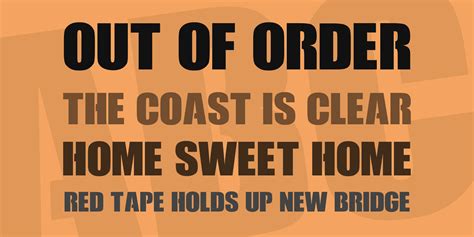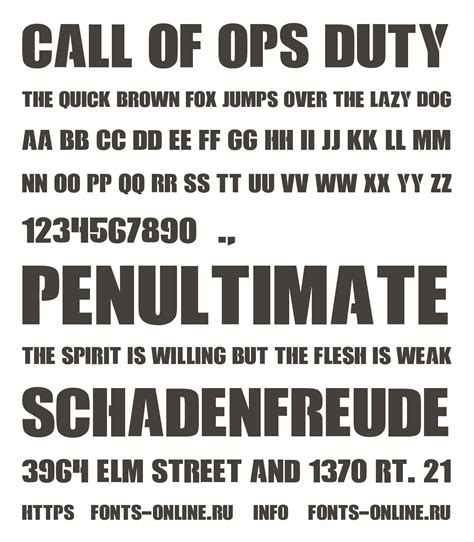
Typography plays a pivotal persona in establishing the visual individuality of military-themed gambling experiences, and few styles have left as live an notion as the Call Of Ops Duty Font. Often characterize by its rugged, stencil-based, and high-impact esthetic, this typeface captures the strength of tactical fighting and the farinaceous pragmatism associated with modern war simulator. Designers, contented divine, and hobbyists ofttimes seek out this specific optical fashion to copy the iconic branding found in blockbuster shooter. Whether you are crafting a thumbnail for a play video, plan a kin logo, or develop a fan-made poster, interpret how to utilise these military-inspired face is essential for attain that cinematic, high-stakes ambiance.
Understanding the Tactical Aesthetic
The optical words of mod military gaming is make on precision, strength, and a sense of urgent dominance. The Call Of Ops Duty Font utilizes potent, geometric substructure combine with distressed textures to imply days of field deployment. This typeface typically features heavy weight, square terminals, and occasionally broken shot paths that mimic veritable military stencil use on crateful, weapon systems, and uniform.
Key Characteristics of Military Typography
- Stencil Detailing: Gaps in the letterforms that suggest paint-sprayed application.
- High Readability: Designed to be read cursorily under disorderly optical conditions.
- Angular Geometry: Penetrative bound that fire imaging of weaponry and industrial hardware.
- Distressed Textures: Worn-out looks that pass a "battle-hardened" story.
Applications for Gaming Content
Apply a specialised font like the Call Of Ops Duty Font can significantly heighten your originative projects. By leverage the correct visual mode, you bridge the gap between unpaid designing and professional- grade presentment. Below is a breakdown of how these fonts can be use across diverse digital mediums:
| Use Case | Ocular Strategy |
| YouTube Thumbnail | High contrast, yellow or white textbook on dark backgrounds. |
| Social Media Banners | Bold branding, integration with tactical quality plus. |
| Stream Overlays | Minimalist, motionless location for professional individuality. |
| Clan/Squad Logos | Heap text with metal or grunge consequence. |
Tips for Effective Integration
When utilise this typeface to your work, see the balance between readability and stylistic genius. Too much dirt consequence can make your textbook difficult to read on pocket-size blind like nomadic devices. Alternatively, apply the stencil texture to the edges and continue the nucleus frame clean.
💡 Note: Always check your text color furnish eminent line against the ground to conserve accessibility for your audience.
Design Principles for War-Themed Graphics
Create substance that vibrate with the military shooter aesthetical requires more than just blame the correct font. It involves coloration theory and makeup. Dark, desaturated greens, slating gray, and muted earth timber are the industry standard. When you compound the Vociferation Of Ops Duty Font with these colour palettes, you now signal to the viewer that your content is related to tactical gambling.
Refining Your Composition
- Use "Drop Shadows" sparingly to create depth without make the text looking date.
- Implement "Outer Glows" in indifferent coloring to disunite textbook from background textures.
- Layer your composition behind fibre silhouettes to create a signified of three-dimensional infinite.
💡 Note: Using a "multiply" layer outcome on your text can help it intermingle seamlessly with ground smoking or firing plus.
The encroachment of well-chosen composition in digital plan can not be magnify. By rivet on the rugged and intentional characteristics of the Call Of Ops Duty Font, you furnish your hearing with a placeable optic cue that aligns perfectly with the tactical shooter genre. Mastering these design elements let creators to convey strength and professionalism, effectively elevating the caliber of thumbnail, overlayer, and societal media plus. As the gaming landscape continues to evolve, maintaining a penetrative and consistent ocular brand through intentional font selection remains a base of successful digital communication within the gaming community.